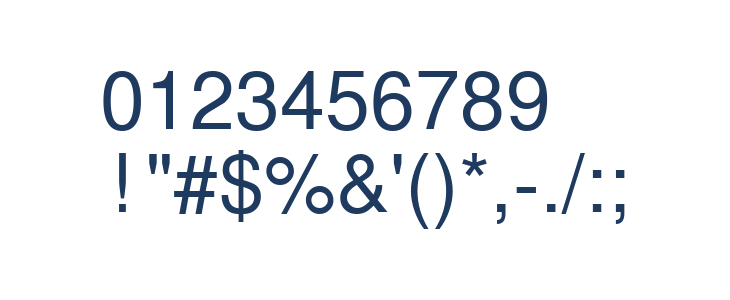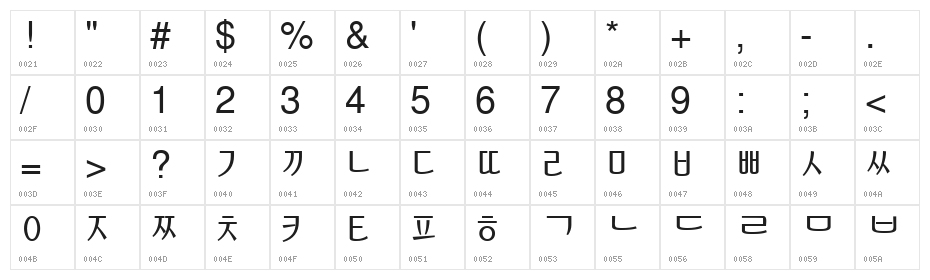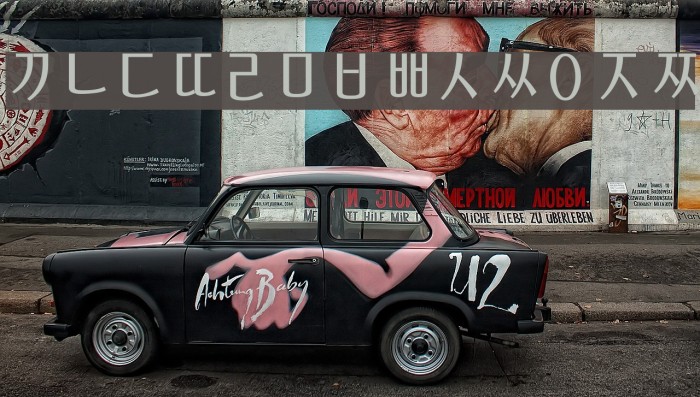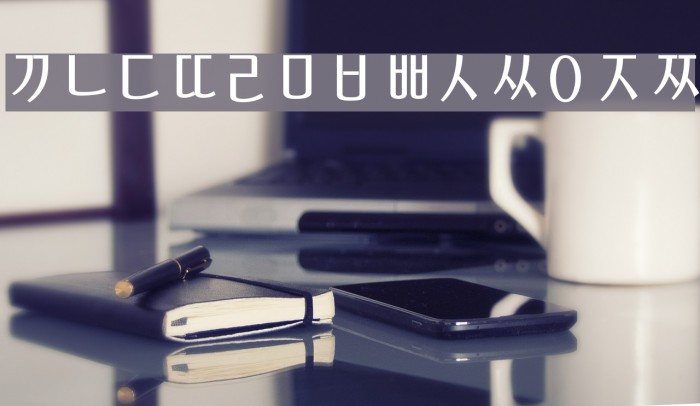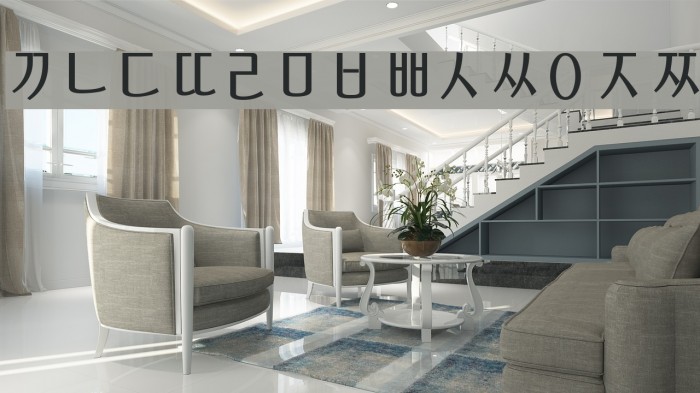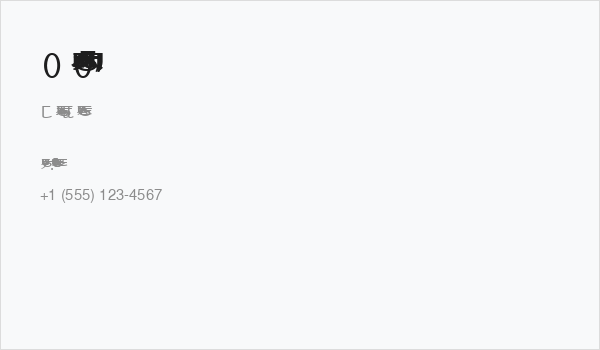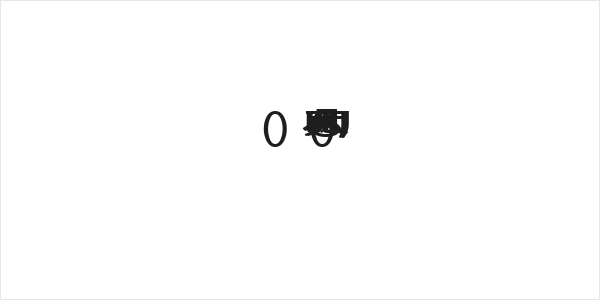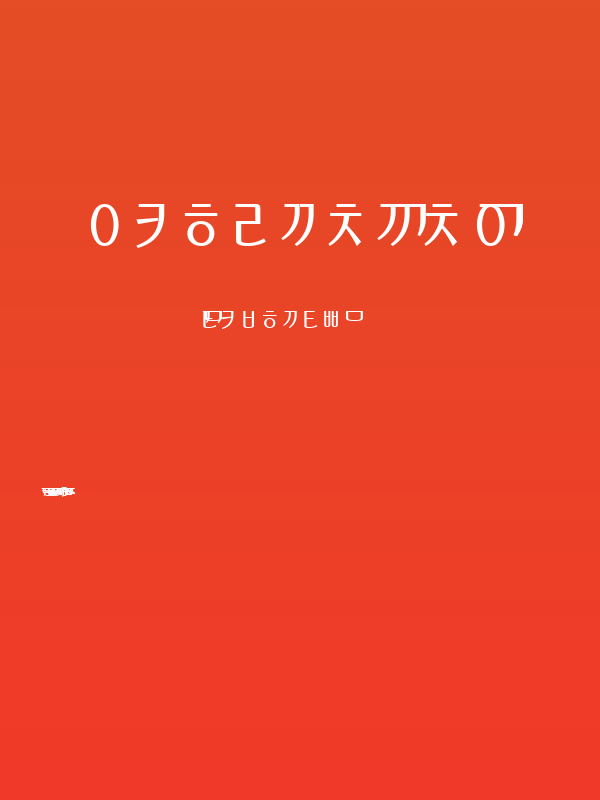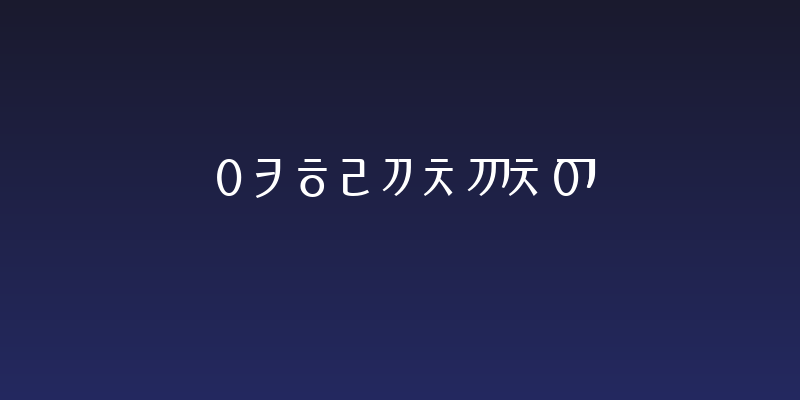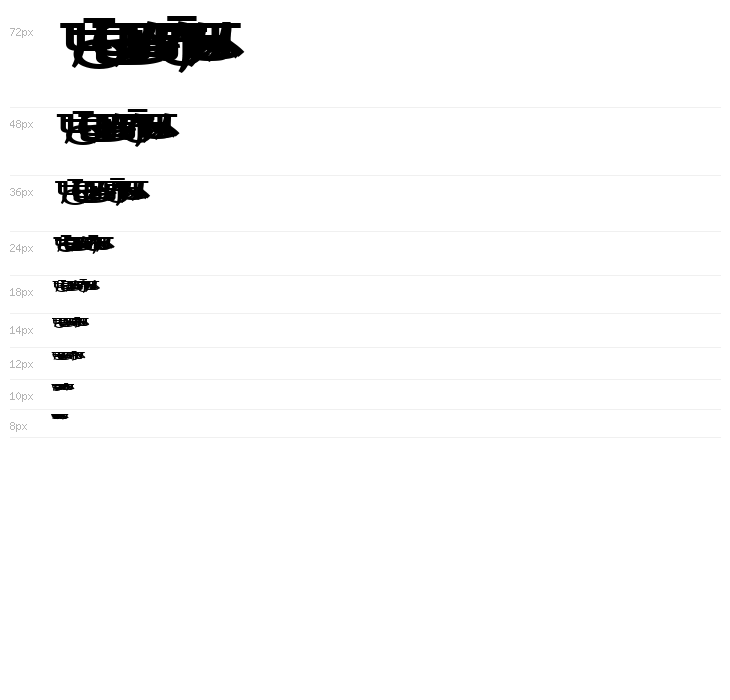
KoreanSansSSK Font
KoreanSansSSK Description
This font features a clean and modern sans-serif design with a distinct geometric structure. The characters are crafted with uniform stroke widths, providing a balanced and harmonious appearance. The font includes a full set of uppercase and lowercase letters, numerals, and a variety of special characters. Its simplicity and clarity make it highly legible, suitable for both digital and print media. The design is versatile, allowing it to be used in a wide range of applications from branding to editorial design. The font's contemporary style is complemented by its efficient use of space, making it ideal for minimalist layouts.
Proposed ProjectsIdeal for branding, editorial design, web design, and minimalist layouts.